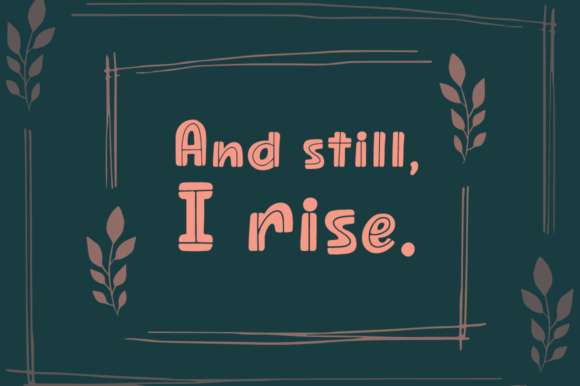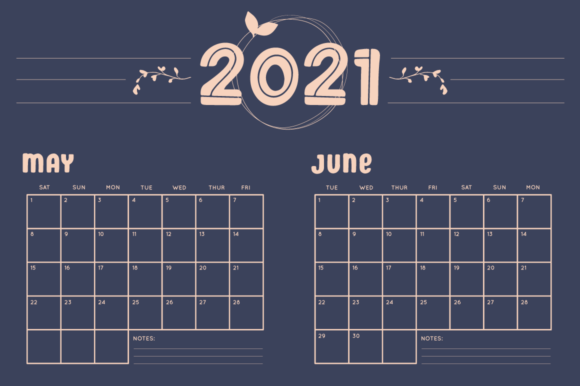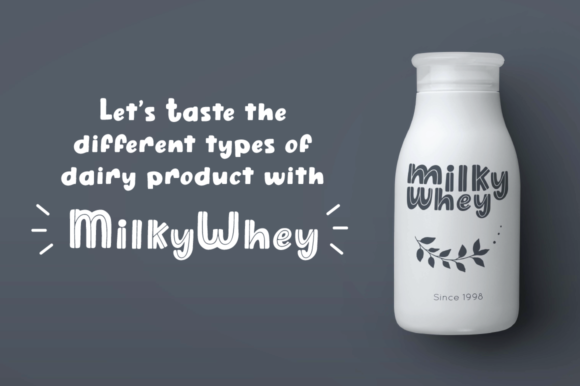
Dussa is a thick lettered and playful display font.
No matter the topic, this font will be an incredibly asset to your fonts’ library, as it has the potential to elevate any creation .
Dussa Font offers exceptional quality and versatility, making it a valuable addition to your design toolkit. Whether you’re creating for personal projects or commercial use, Dussa Font delivers professional results.